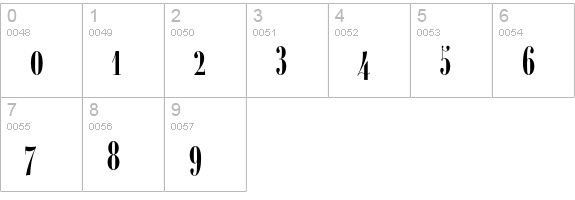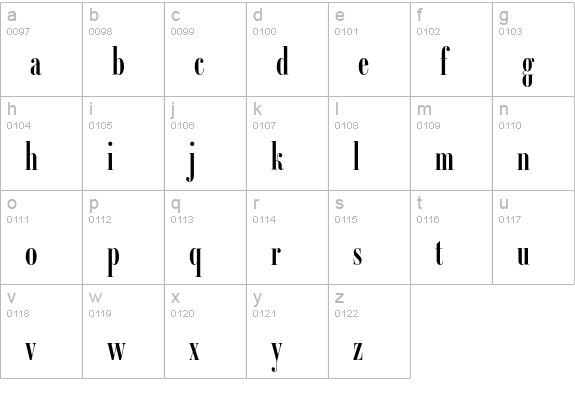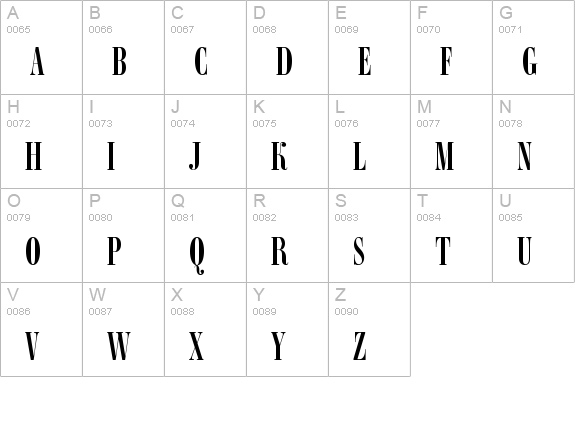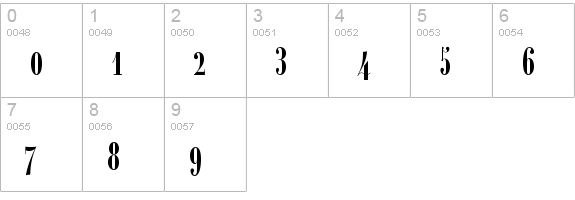
Ambroise Francois Demi Font Details
Ambroise Francois Demi is a sub-bold, structured variant in the Ambroise typeface family \xE2\x80\x94 well suited to sub-headlines and emphasised passages.
The Ambroise Francois Demi font exudes elegance and sophistication with its bold and striking design. Perfect for creating eye-catching headers, titles, and logos, this font commands attention and adds a touch of class to any project. Its sleek lines and modern aesthetic make it a versatile choice for both print and digital applications. What sets the Ambroise Francois Demi font apart is not only its stunning appearance but also its accessibility. Unlike many premium fonts, this one is available for free download at FontsMarket.com. This means that you can elevate your designs without breaking the bank, making it an ideal choice for designers on a budget. Whether you're working on a branding project, website design, or any other creative endeavor, the Ambroise Francois Demi font will help you make a bold statement. Download it today and see the difference it can make in your designs.